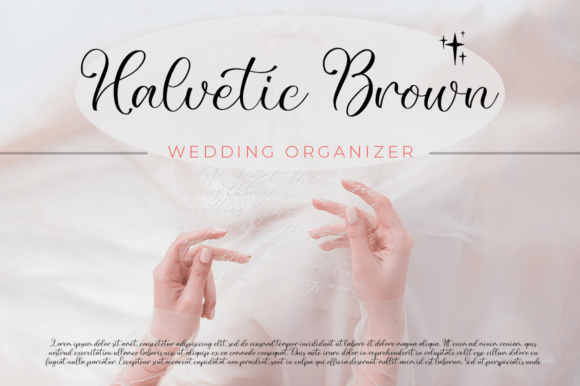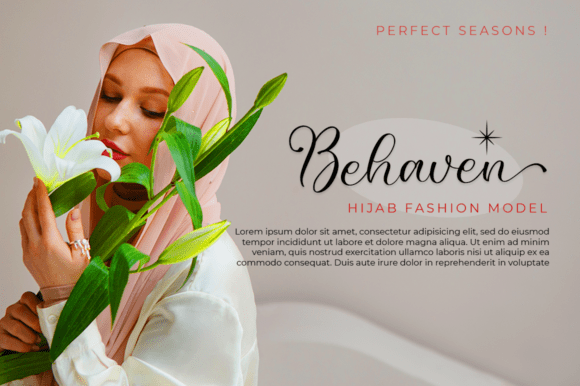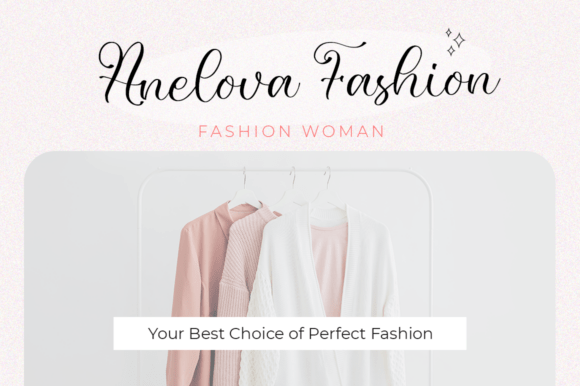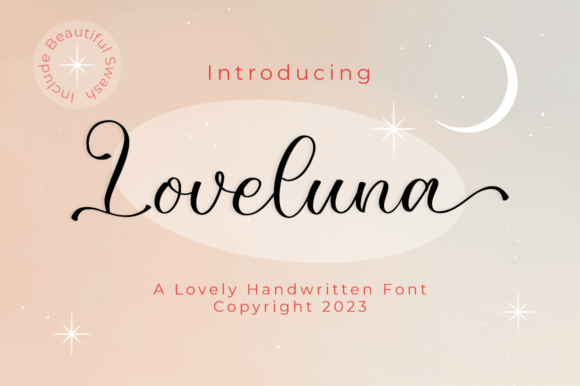
Introduction to Loveluna Font
Loveluna is a dazzling script font.
This font is neatly crafted and highly detailed Whatever the topic, this font will be a wonderful asset to your font library, as it has the potential to enhance any creation.
Key Features of Loveluna Font
Why Choose Loveluna Font?
Loveluna Font offers exceptional quality and versatility, making it a valuable addition to your design toolkit. Whether you’re creating for personal projects or commercial use, Loveluna Font delivers professional results.